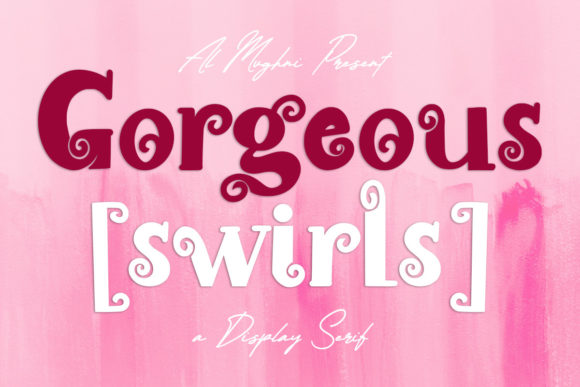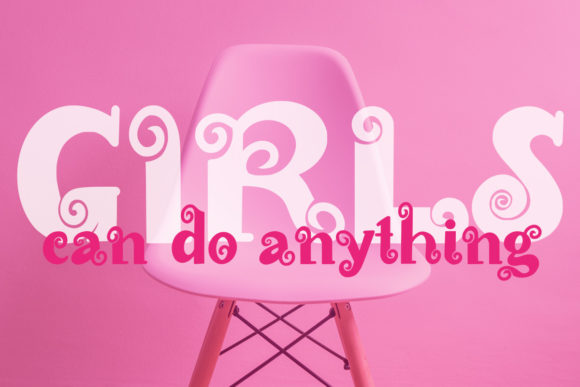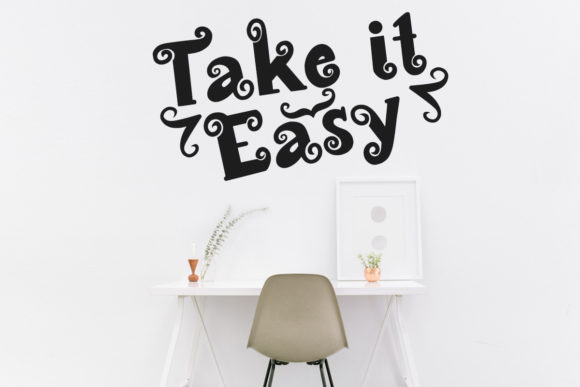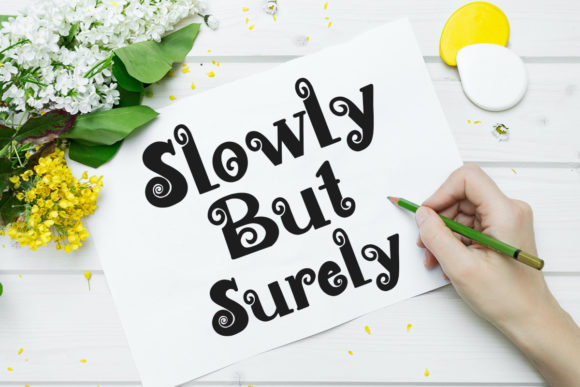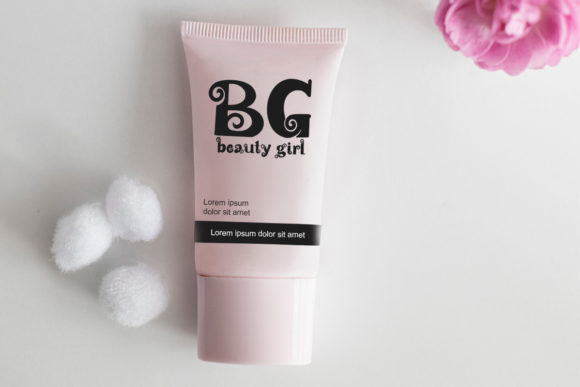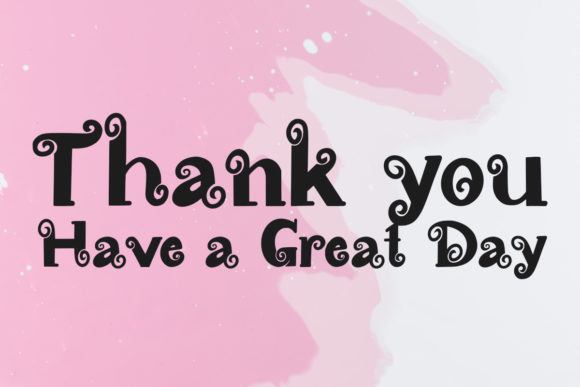
Gorgeous Swirls Font
Gorgeous Swirls: A Playful and Elegant Slab Serif Font
Gorgeous Swirls is a distinctive slab serif font that combines playfulness with elegance. This versatile typeface teases the eyes with its curves while maintaining a classy composure, making it perfect for a wide range of creative projects.
Key Features of Gorgeous Swirls
• Playful Design: Offers a fun and whimsical look that catches the eye.
• Elegant Style: Maintains a classy appearance despite its playful nature.
• Curved Elements: Features swirling curves that add visual interest.
• Slab Serif Structure: Incorporates the characteristic thick serifs typical of slab serif fonts.
• Retro Aesthetic: Evokes a vintage feel with a modern twist.
• Bold Presence: Makes a strong visual impact in designs.
• Versatile Application: Suitable for a wide range of creative projects.
Ideal Uses for Gorgeous Swirls
Gorgeous Swirls’ unique characteristics make it particularly well-suited for:
• Fun and playful branding projects
• Retro-inspired designs
• Eye-catching headlines and titles
• Creative packaging designs
• Whimsical social media graphics
• Unique logo designs
• Invitations and greeting cards
When incorporating Gorgeous Swirls into your designs, consider these tips:
• Use for headlines or short blocks of text to showcase its playful and elegant style
• Experiment with different sizes to highlight the font’s unique curved details
• Take advantage of its retro feel for vintage-inspired projects
• Use its bold presence to add a fun element to more serious designs
Gorgeous Swirls is an excellent choice for designers looking to add a touch of playful elegance to their projects. Its ability to tease the eyes with curves while maintaining a classy composure makes it stand out in the world of typography. Whether you’re working on logo designs that need a dose of fun, creating layouts for retro-inspired content, or developing projects that require a balance of playfulness and elegance, Gorgeous Swirls offers the perfect blend of whimsy and sophistication.
Furthermore, Gorgeous Swirls’ versatility allows it to shine in various contexts. From vintage-inspired designs with a modern twist to more playful layouts that need a touch of class, this font can elevate your projects. Its retro yet bold style works particularly well in designs that require a fun and thoughtful mood.
In conclusion, Gorgeous Swirls is a font that truly lives up to its name, offering gorgeous swirling curves that add a unique flair to any design. Its ability to work well in both retro-inspired projects and contemporary layouts showcases its flexibility. For those looking to add a dash of playful elegance to their work, Gorgeous Swirls can even enhance themed creations with its unique, swirling style. Perfect for anything your creativity takes you, this font is sure to add that needed dose of fun to your projects!